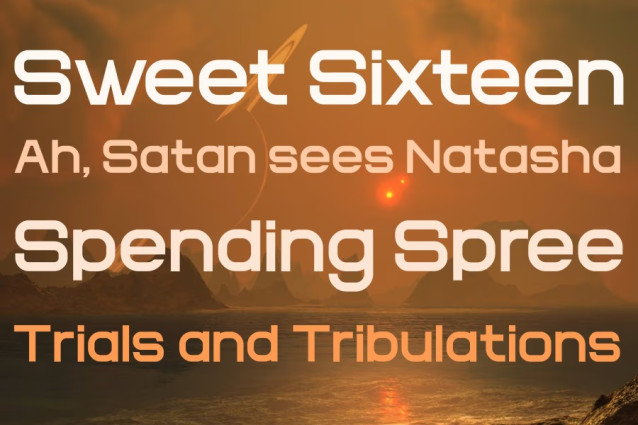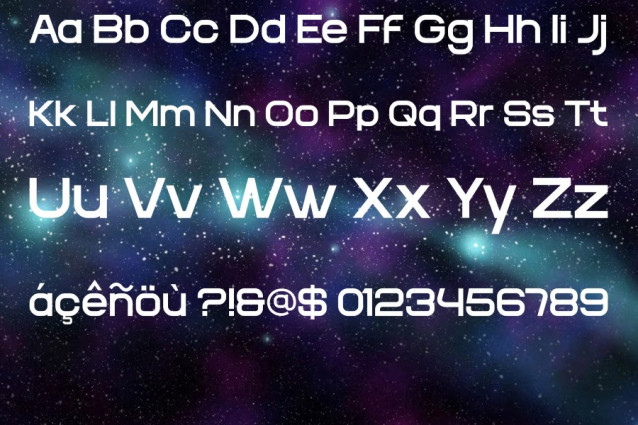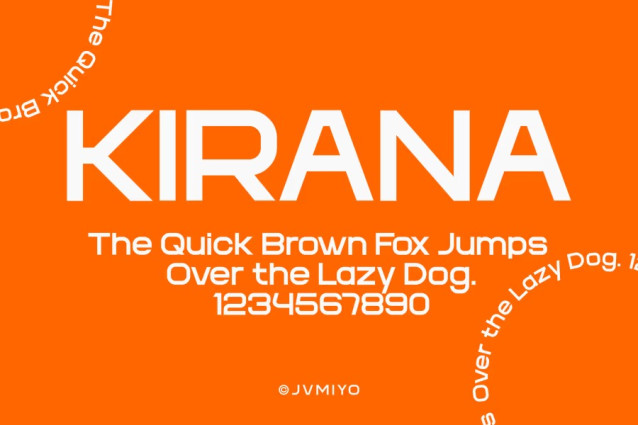
Kirana Font a bold statement with our latest sans-serif font. With its clean lines and modern appeal, this font is sure to turn heads and leave a lasting impression. Perfect for headlines, logos, and any design that demands attention. It is both functional and stylish, making it a versatile choice for a wide range of design projects.
Kirana Font
KIRANA